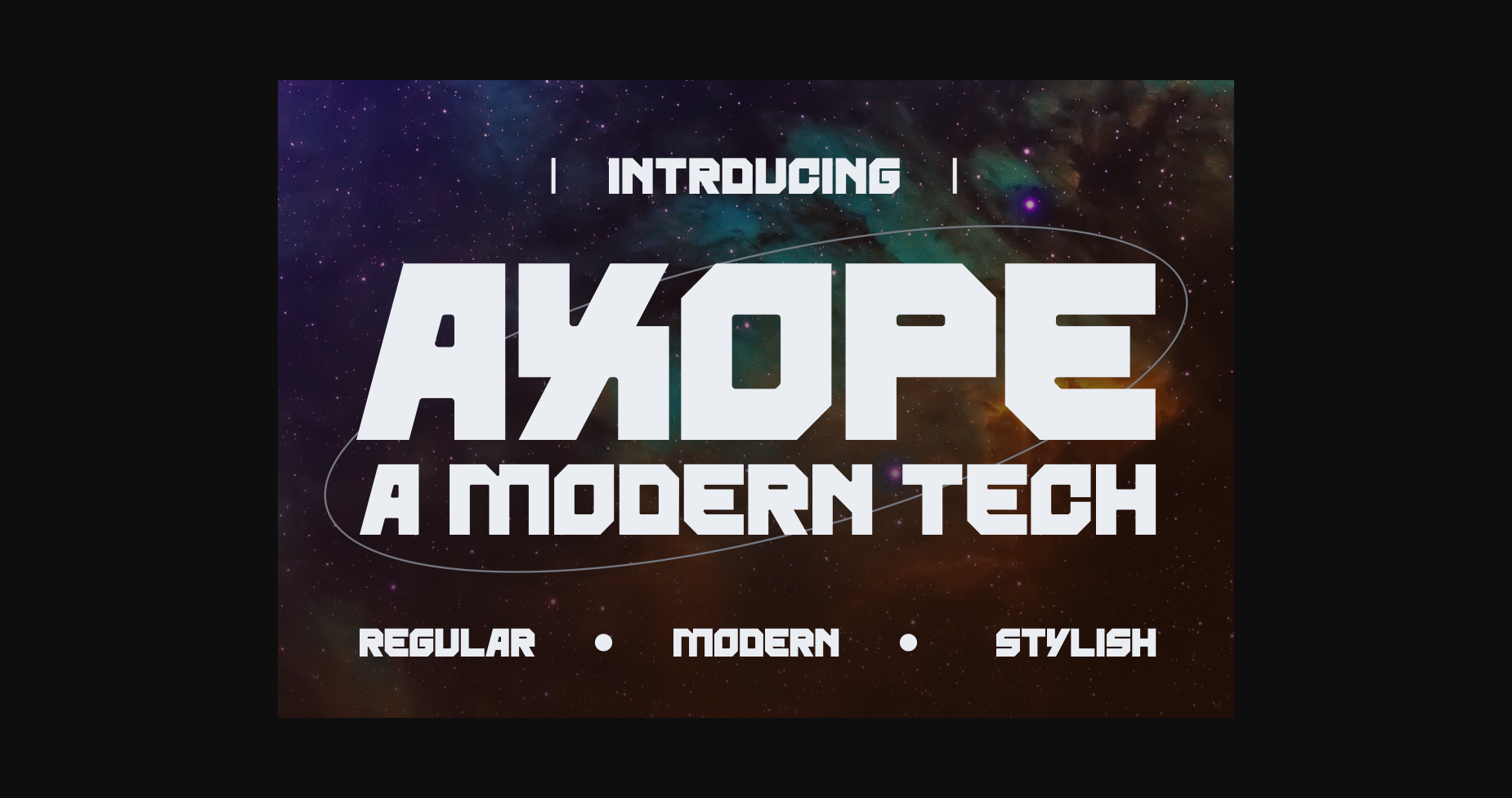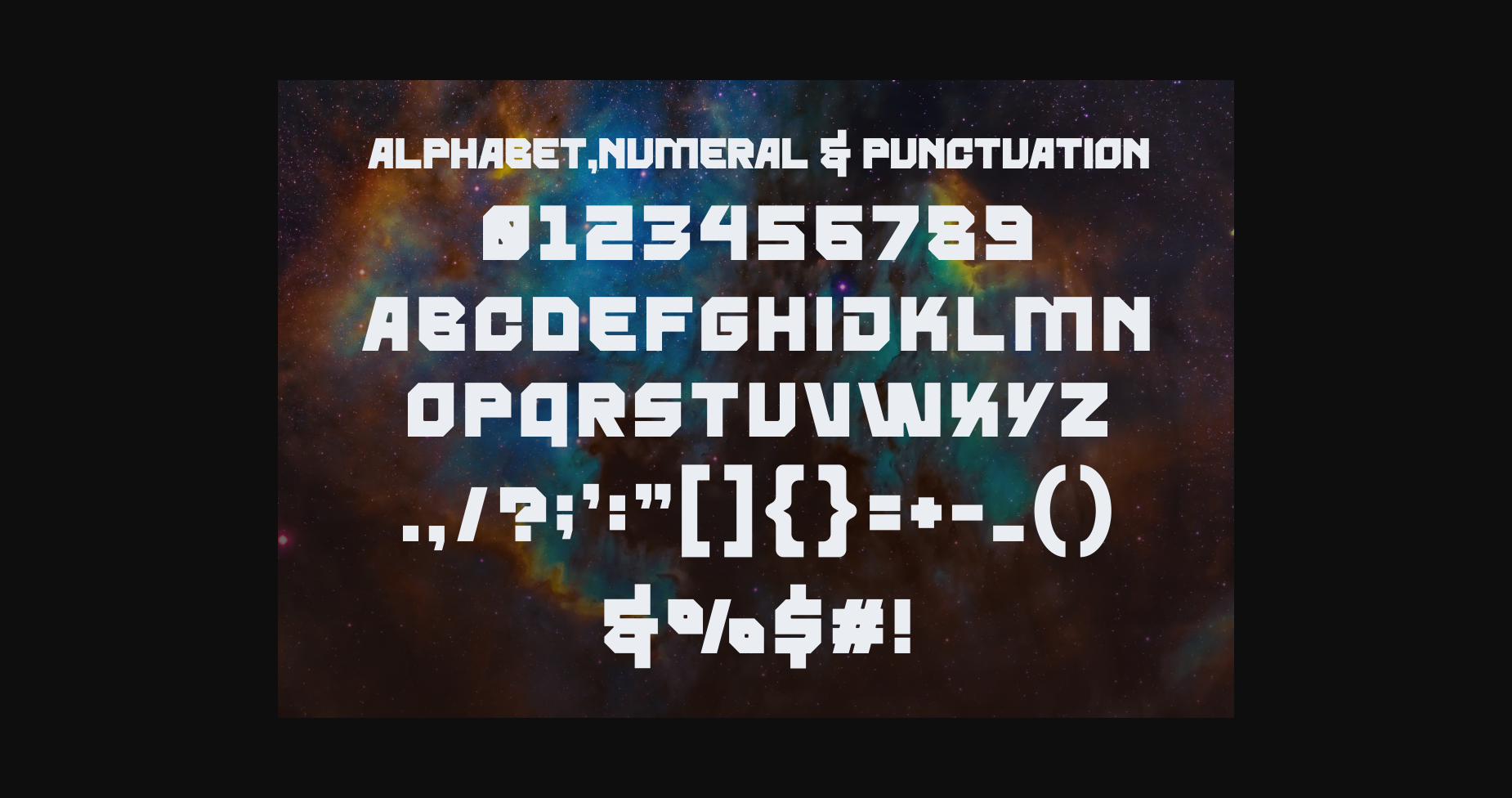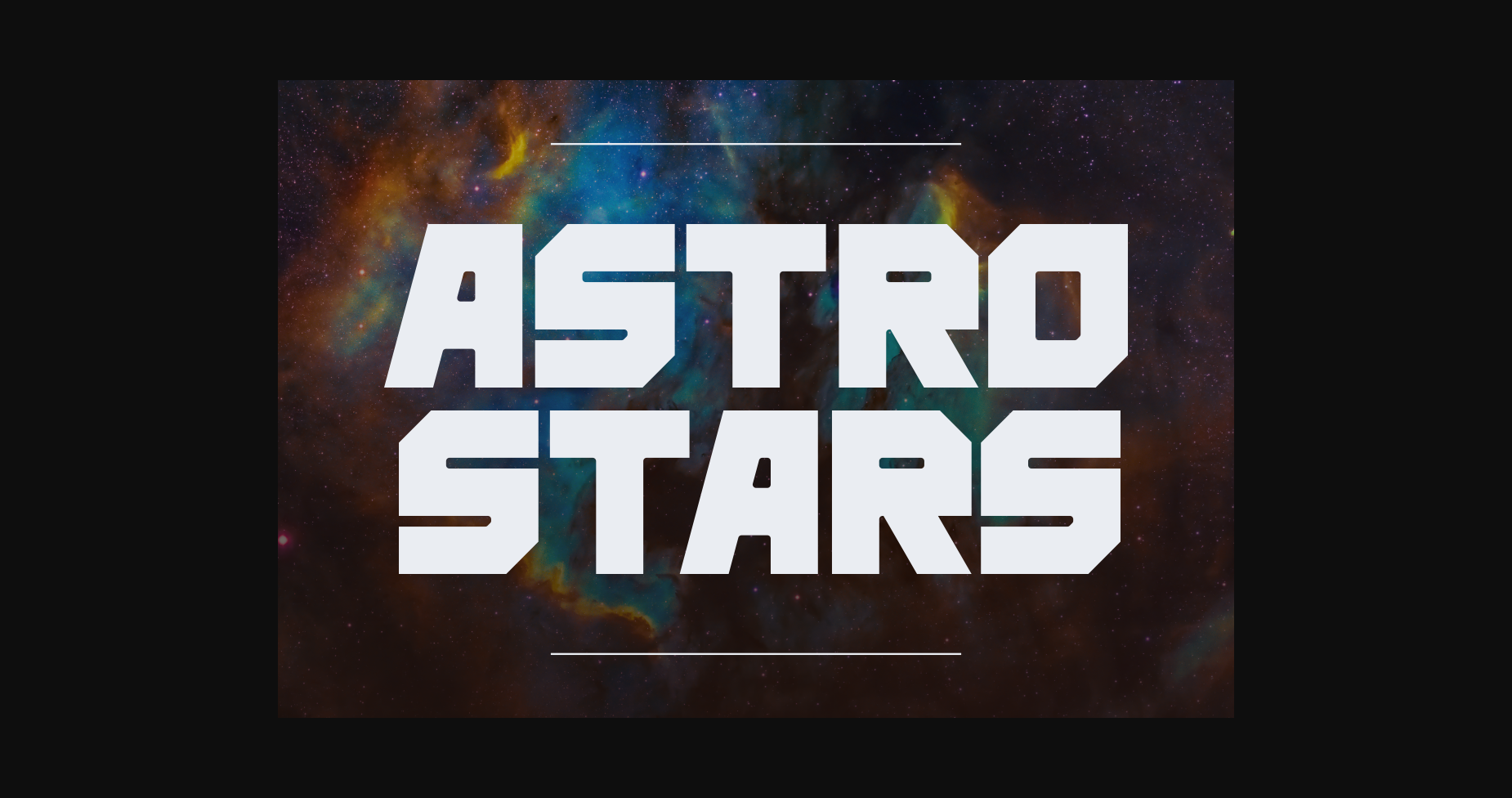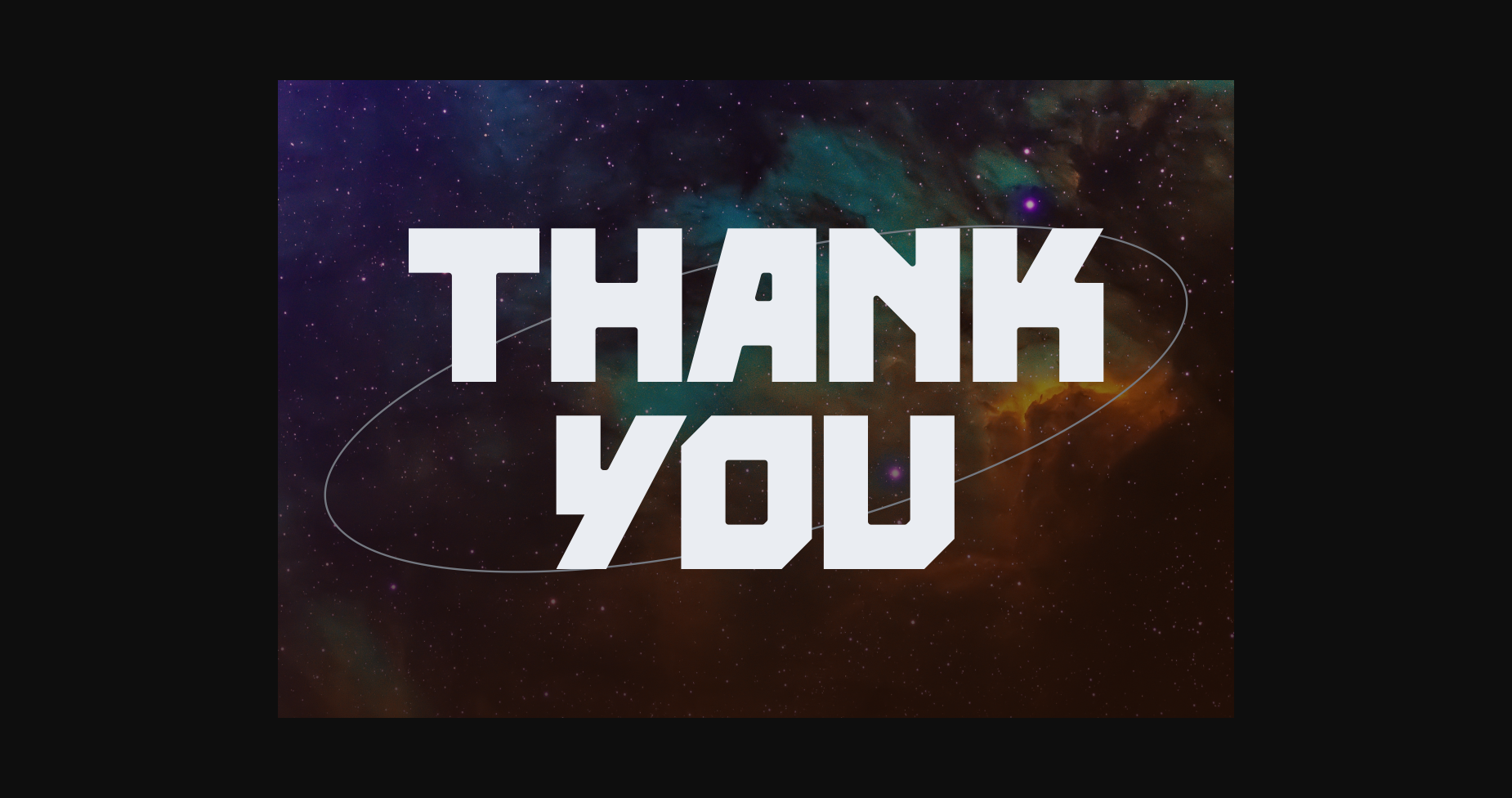
Axope is a modern, bold and authentic display font. It is ideal for any branding project like logos, template designs, social media, banners, posters and so much more.